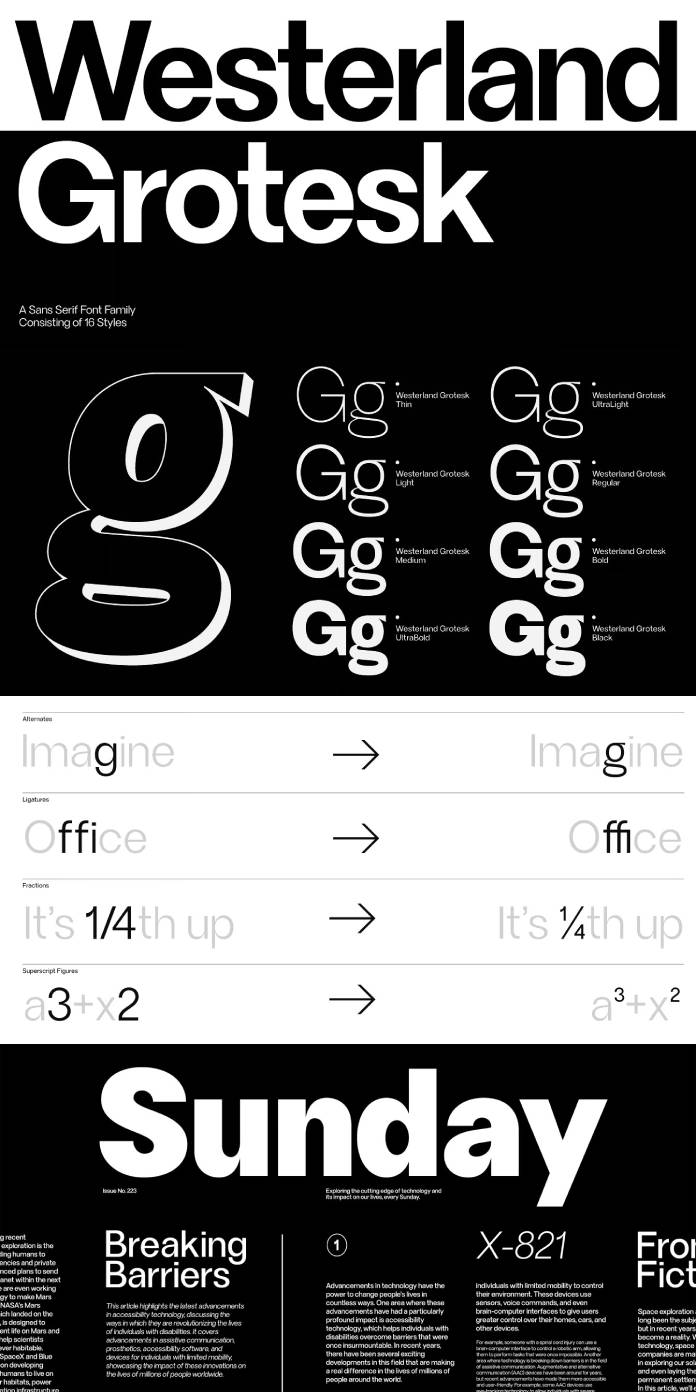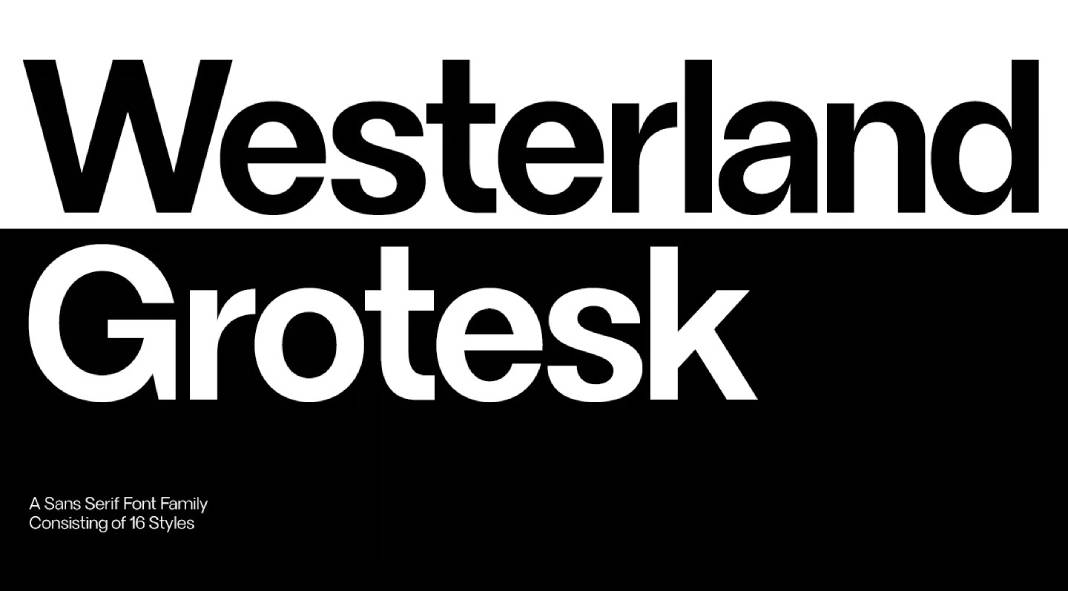
Unveiling Elegance: Exploring the Westerland Grotesk Font Family by SG Type
In design, where classic simplicity meets contemporary sophistication, a new player has emerged to redefine the landscape of sans-serif fonts. Introducing Westerland Grotesk by SG Type – a font family that seamlessly harmonizes the timeless with the avant-garde, offering a perfect blend of sleekness and warmth that’s bound to captivate the creative mind.
Westerland Grotesk exudes a distinct charm, thanks to its subtle contrast found across the various weights. This unique feature infuses the font with a warmth that is often elusive in traditional grotesques, allowing it to stand out in a crowd while maintaining the clean lines characteristic of the genre.
Comprising eight weights in both Roman and Italic styles, the Westerland Grotesk font family offers an expansive palette of possibilities. From the delicate and elegant lightness of the thinner weights to the bold and expressive statements made by the heavier ones, designers are equipped with a versatile toolkit that can adapt to a myriad of creative visions.
The true beauty of Westerland Grotesk lies in its ability to transcend the limitations of a single style. Whether you’re crafting a minimalist logo, designing an editorial masterpiece, or creating a loud and impactful poster, this font family is your go-to companion. It effortlessly molds itself to the designer’s vision, offering a seamless integration of classic and contemporary aesthetics.
Each style within the Westerland Grotesk family is a testament to the meticulous craftsmanship of SG Type. The designers have masterfully crafted a font that not only adheres to the principles of simplicity and functionality but also pushes the boundaries of what a grotesque can achieve.
Westerland Grotesk is not merely a typeface; it’s a design philosophy in itself. It beckons designers to explore the intersection of tradition and innovation, urging them to break free from the conventional and embrace a font that is as dynamic as the creative minds that wield it.
Westerland Grotesk stands tall as a font family that is both cool and professional. Its sleek lines and warm undertones make it the ideal choice for those who seek to make a statement without sacrificing sophistication. SG Type has indeed crafted a masterpiece that elevates the art of typography to new heights – a testament to its commitment to pushing the boundaries of design.
So, whether you’re a seasoned designer looking to refresh your toolkit or a newcomer eager to make a bold entrance, Westerland Grotesk is your ticket to a world where classic simplicity dances with contemporary sophistication, creating a symphony of design that resonates with every stroke and curve.